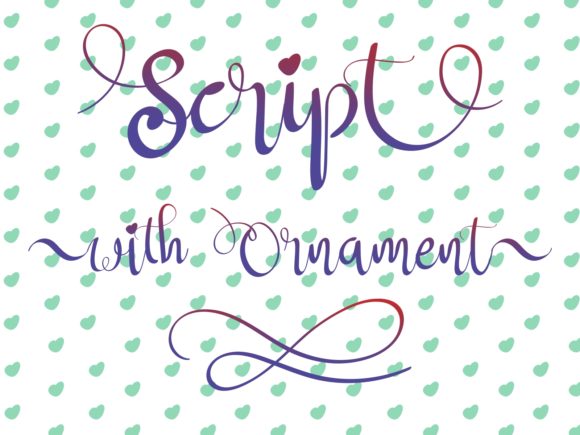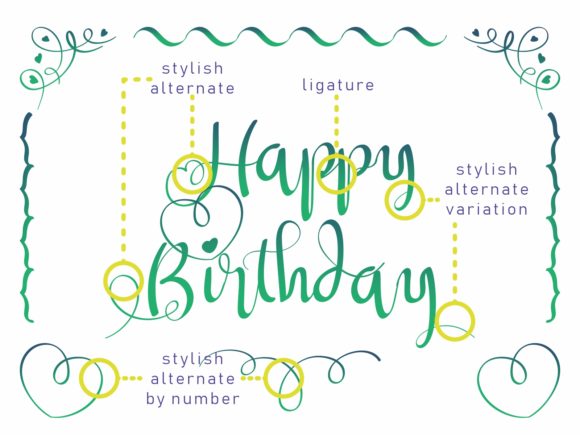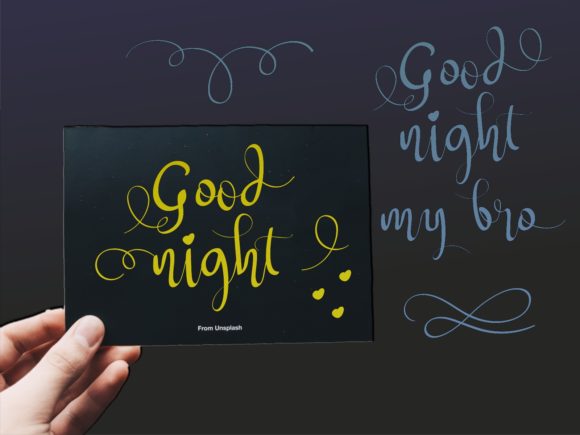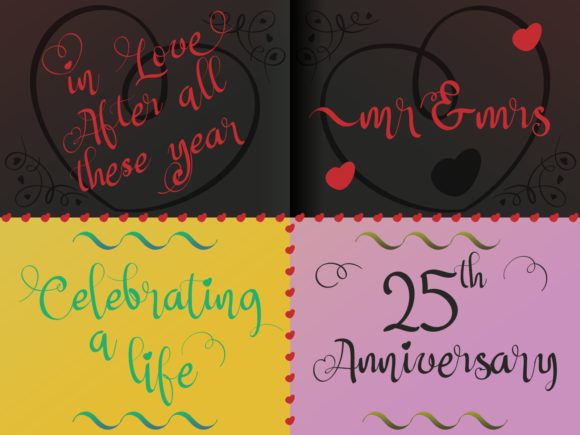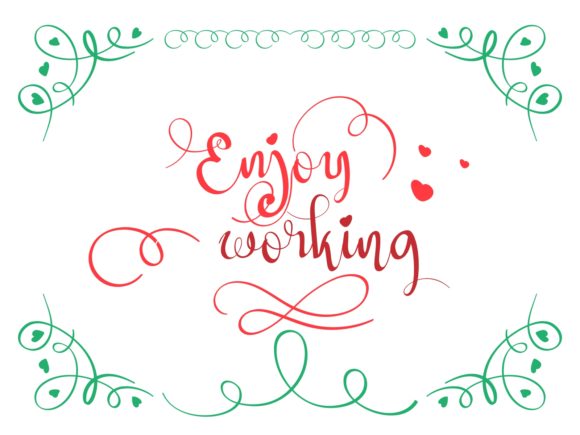
Introduction to Shopie Font Font
Fonts play a crucial role in design, and the Shopie Font font is a typeface that brings both character and versatility to any project. Whether you’re working on a branding project, a website, or a print design, the Shopie Font font offers a unique style that can elevate your work.
Shopie is a delicate script font decorated with curved lines.
Shopie is a delicate script font decorated with curved lines. Not too thin and not too thick, balanced and varied, this font was designed to enhance the beauty of your projects
Key Features of Shopie Font Font
Why Choose Shopie Font Font?
The Shopie Font font is more than just a typeface – it’s a design tool that helps you communicate your message with style and clarity. Its unique character set and versatile design make it suitable for a wide range of applications, from elegant invitations to bold headlines.
With its carefully crafted letterforms and balanced proportions, the Shopie Font font ensures readability and visual appeal across all mediums.
What makes Shopie Font font special?
The Shopie Font font stands out with its unique design, exceptional readability, and versatility across various design applications.